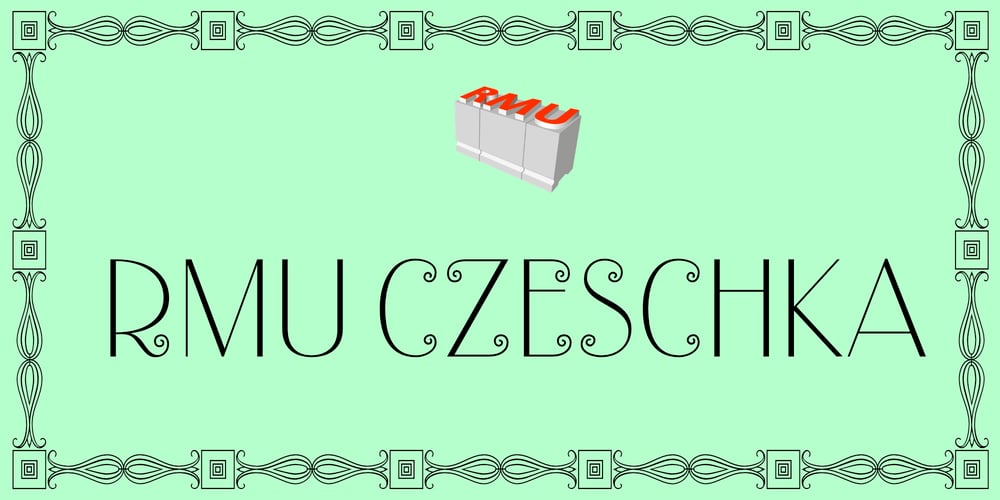
RMU Czeschka Font Family was designed by Ralph M. Unger and published by RMU. RMU Czeschka contains 1 styles and family package options. Thanks to the Quay Brothers, London, who provided me with original materials, I was able to revive Carl Otto Czeschka’s beautiful Czeschka Antiqua which was first released by Genzsch & Heyse in 1917. Since nowadays the word Antiqua rather refers to fonts with serifs, I dropped it, also because this fanciful font is a humanist sans.To get access to all ligatures, it is recommended to also activate the OT feature Discretionary Ligatures.